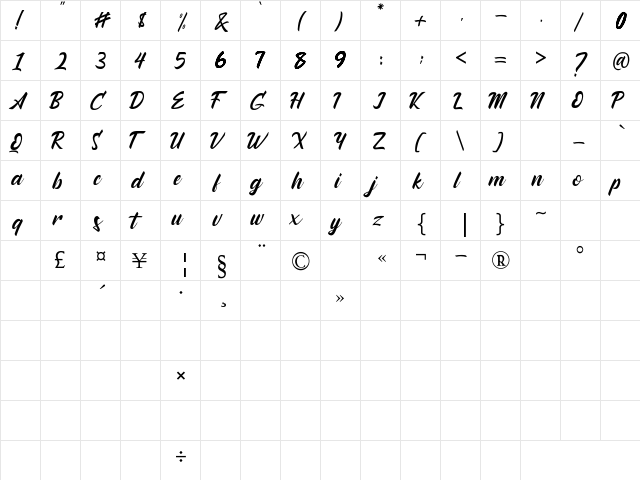
Andallan Regular
Design Context for Andallan Typeface
Andallan is a composed and adaptable typeface that performs quietly and consistently across a wide range of design contexts.